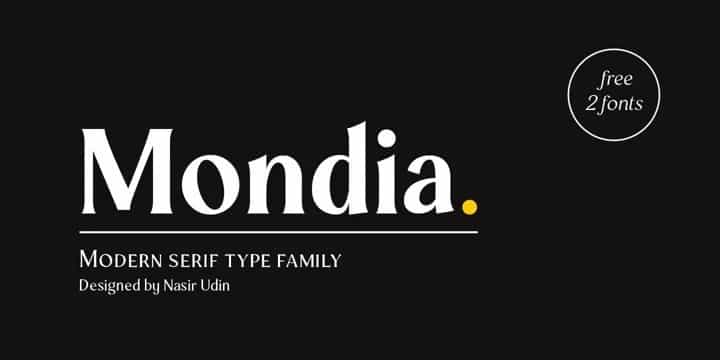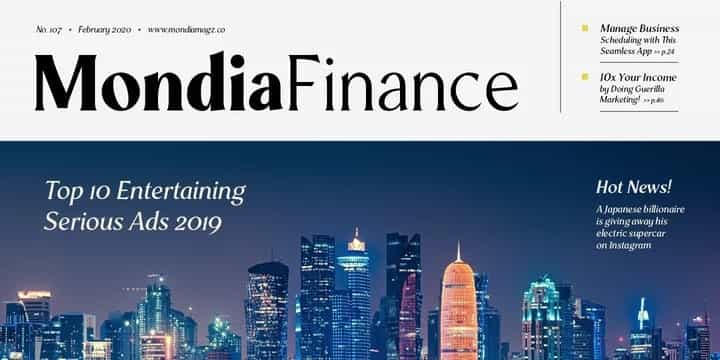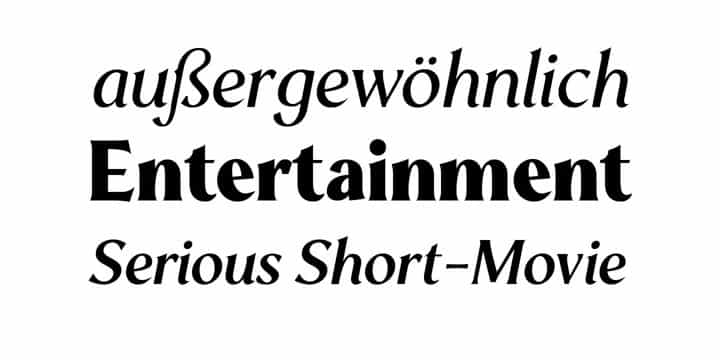
This font family known as Mondia Typeface has been created by contemporary and transitional font designers and it comes with 18 fonts. The characters of Mondia are clear and give very nice readability, the high x-height makes the text more legible and the contrast of black and white lend the typeface an elegant, sophisticated look. From the thin to the thick and the italicized versions, Mondia can be used for editorial or graphic design; the font has an extended Latin character set that can accommodate more than 200 Latin-based languages!